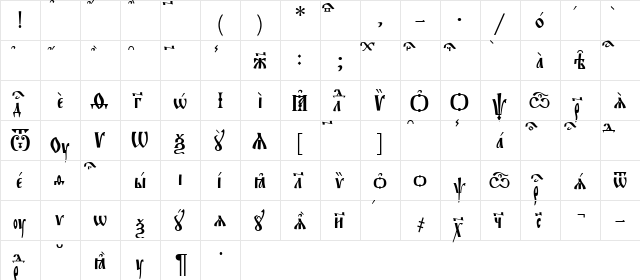
Evangelie Ucs Regular
| Designer | SoftUnion Ltd - A. Shishkin and N. Vsesvetskii |
Design Context for Evangelie Ucs Typeface
Evangelie Ucs takes a measured approach to typography — its balanced proportions and neutral character make it a reliable workhorse for both digital and print work.